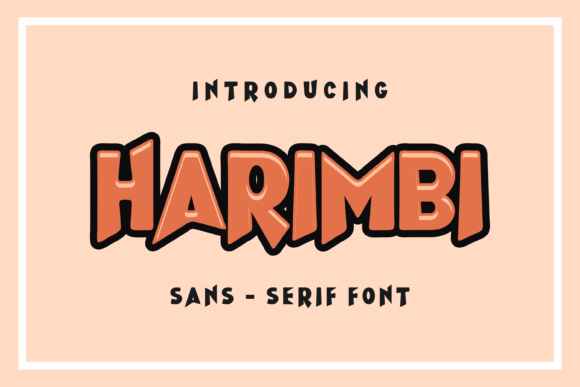
Introducing Harimbi Font: Unleash Whimsical Wonderland
In a world where creativity thrives and a unique style reigns, Harimbi Font emerges as a true gamechanger. Its playful and captivating spirit is poised to transform your designs into mesmerizing works of art. Picture a font that dances across your screen, filling every letter with joy and vibrancy. Harimbi Font is the perfect companion for imaginative souls who crave a touch of magic in their digital creations.
Step into a Whimsical Universe
From the moment you encounter Harimbi Font, you'll be swept away by its infectious charm. This display font isn't just a collection of letters; it's an invitation to embark on a whimsical journey. Each character exudes personality and playfulness, promising to add a touch of enchantment to your projects. Whether you're a seasoned designer or a beginner seeking to infuse your work with magic, Harimbi Font is your ultimate creative companion.
Crafted for Versatility and Elegance
Harimbi Font is more than just a pretty face; it's a versatile chameleon that adapts seamlessly to various design landscapes. Whether you're creating eye-catching logos, captivating social media graphics, or simply adding a touch of whimsy to your presentations, Harimbi Font rises to every occasion with effortless grace. Its ability to blend harmoniously with different design elements ensures that your creations will always stand out and leave a lasting impression.
The Perfect Choice for Cover Letters
In the competitive world of job applications, a well-crafted cover letter can make all the difference. Harimbi Font empowers you to create cover letters that exude professionalism, creativity, and a touch of personal charm. Its unique style will set your application apart from the crowd and capture the attention of potential employers. Let Harimbi Font be your secret weapon in securing your dream job.
Ignite Your Creative Spirit
Harimbi Font is not just a font; it's a gateway to a realm of boundless creativity. Unleash your imagination and let your designs flourish with this extraordinary font. Whether you're creating digital designs, handmade crafts, or simply exploring the world of typography, Harimbi Font is your trusty companion, guiding you toward remarkable outcomes.